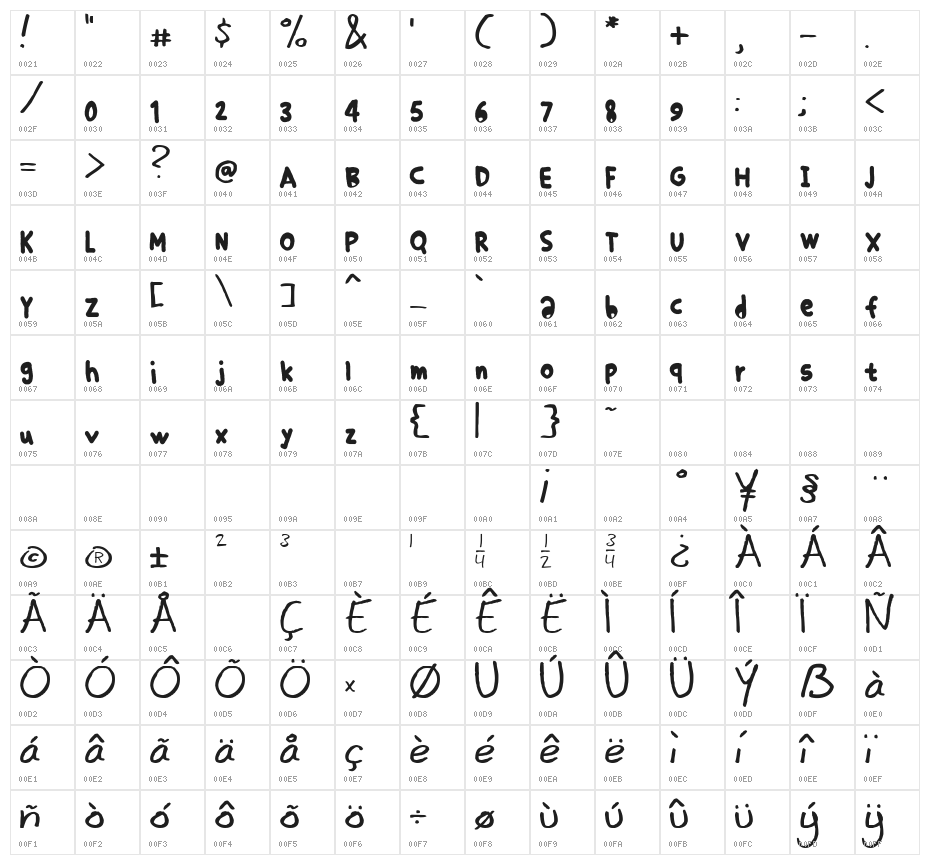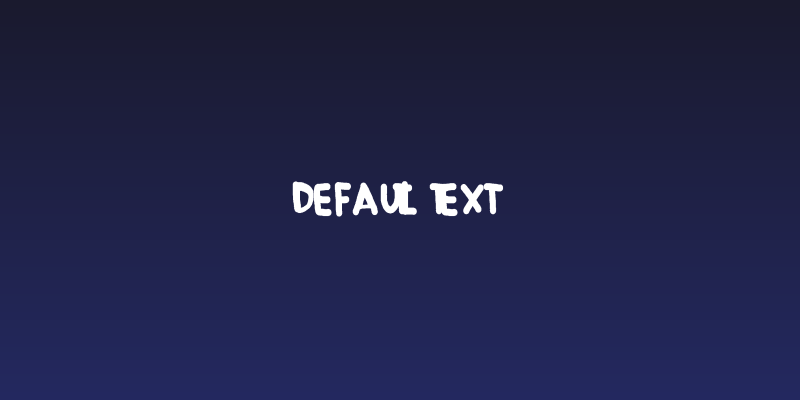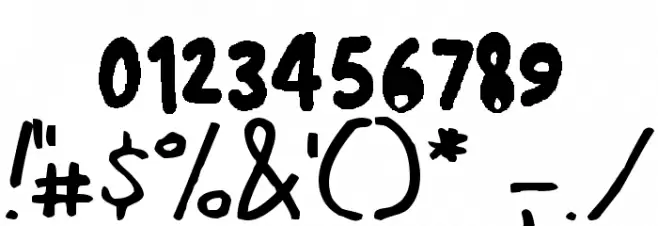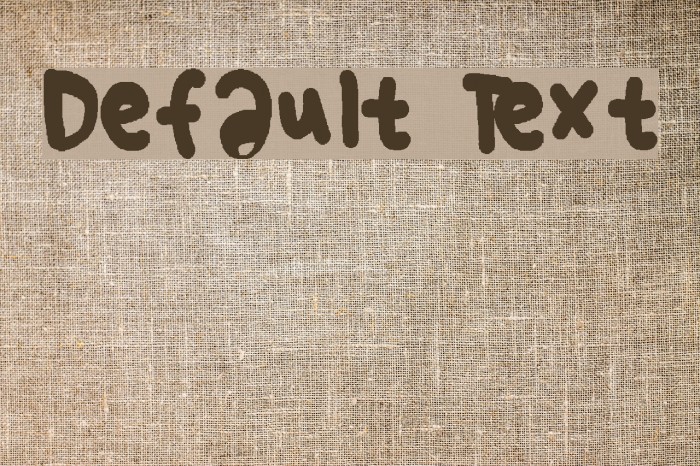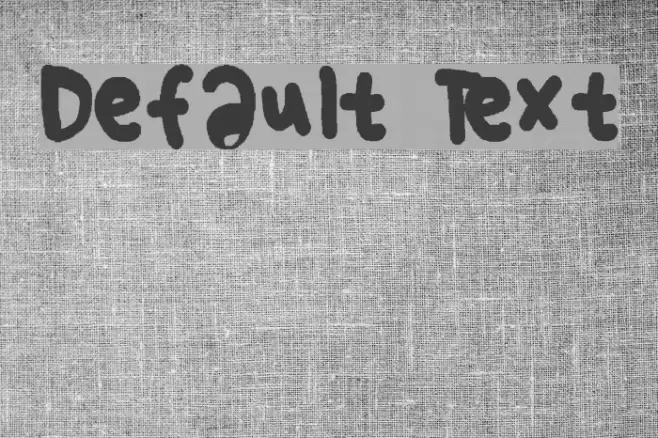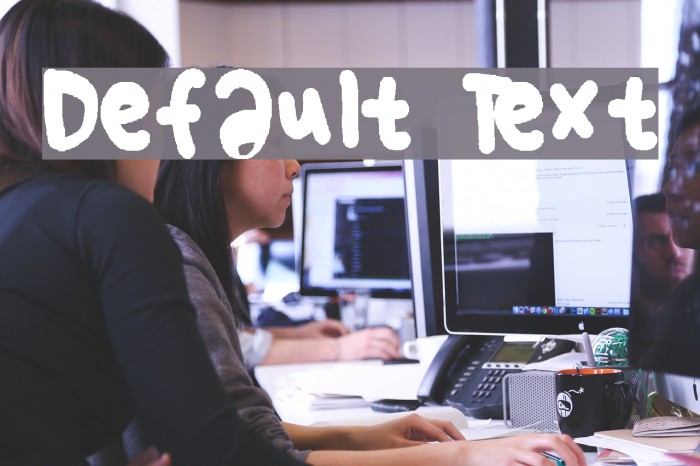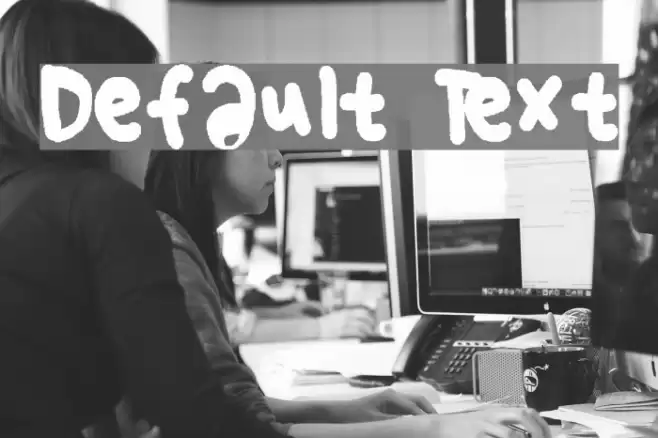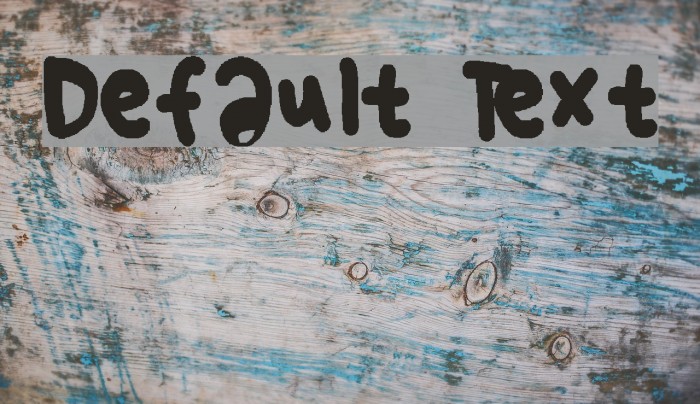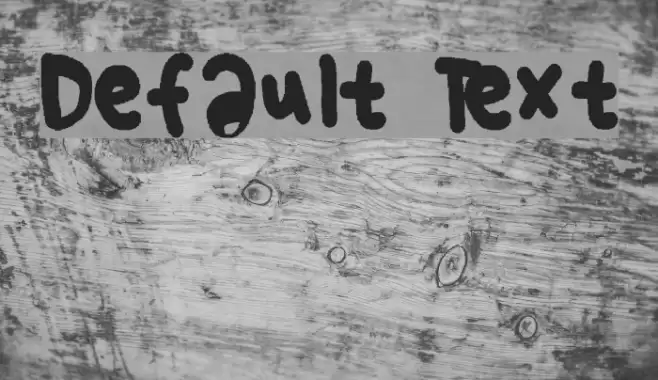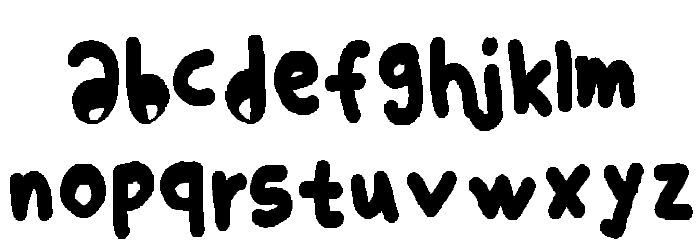
Default Text Font
Default Text Description
This font features a playful and bold handwritten style, characterized by its thick, rounded strokes and slightly irregular shapes. The letters have a casual, informal appearance, making them suitable for creative and fun projects. The uppercase and lowercase letters maintain a consistent style, with the lowercase letters being slightly smaller and more compact. Numbers and special characters are also included, following the same bold and playful design. The overall look is friendly and approachable, ideal for projects that require a personal touch.
| Overall Style | Playful, Informal |
| Use Case | Logos, Headlines, Posters |
| Proposed Projects | Ideal for children's books, playful branding, greeting cards, and informal invitations. |